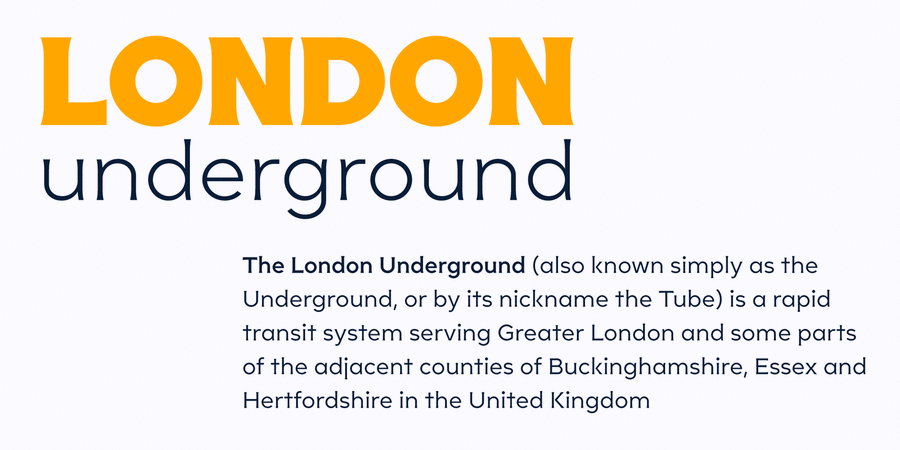
Zerno (18 fonts)
Zerno is a glyphic typeface with geometric roots. Its symmetrical flared serifs are reminiscent of stone carving techniques. With weights ranging from Thin to Black, it is versatile enough to be used in any environment – from screen to literal stone carving, as well as from posters to body copy that stands out. The typeface was designed by Oleh Lishchuk in 2021.